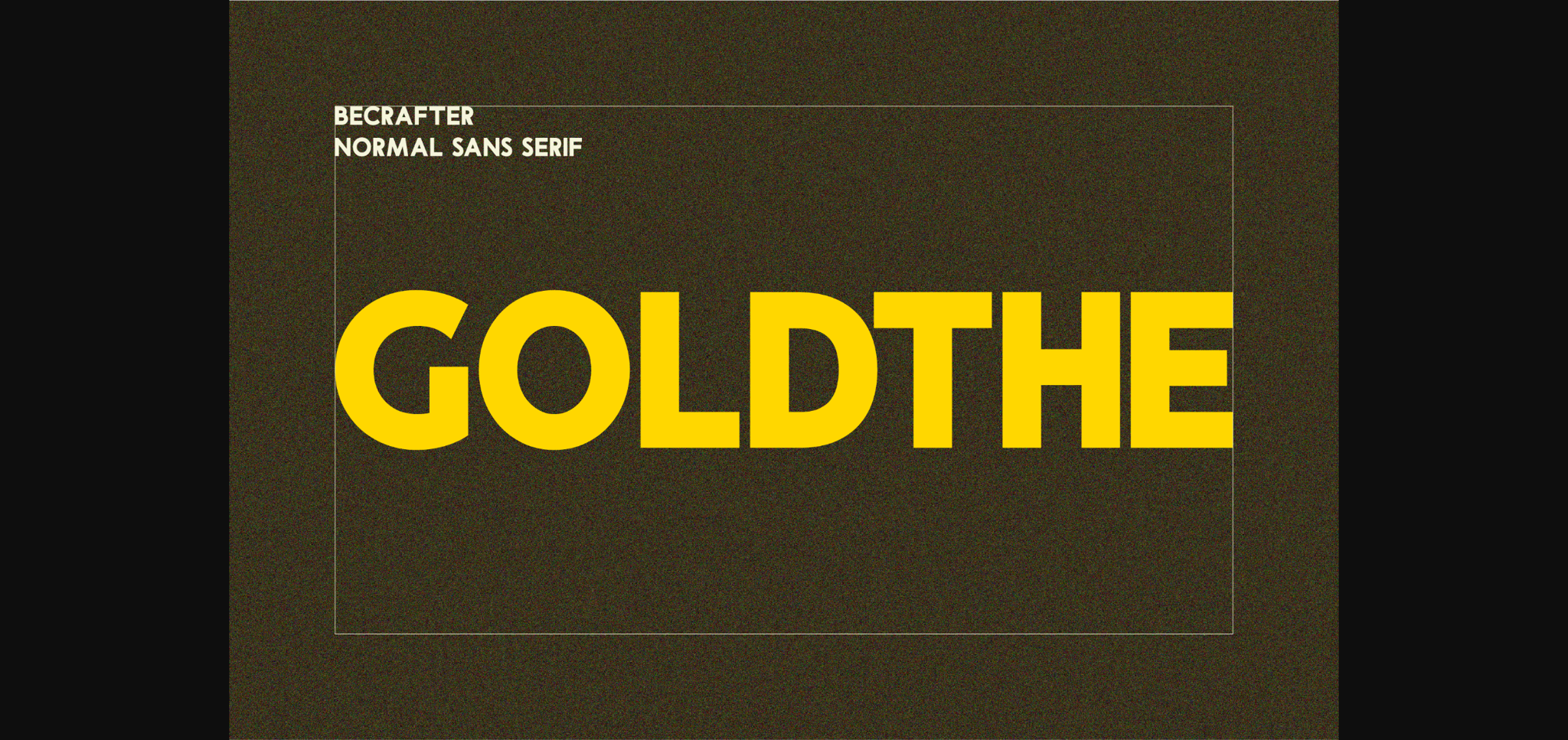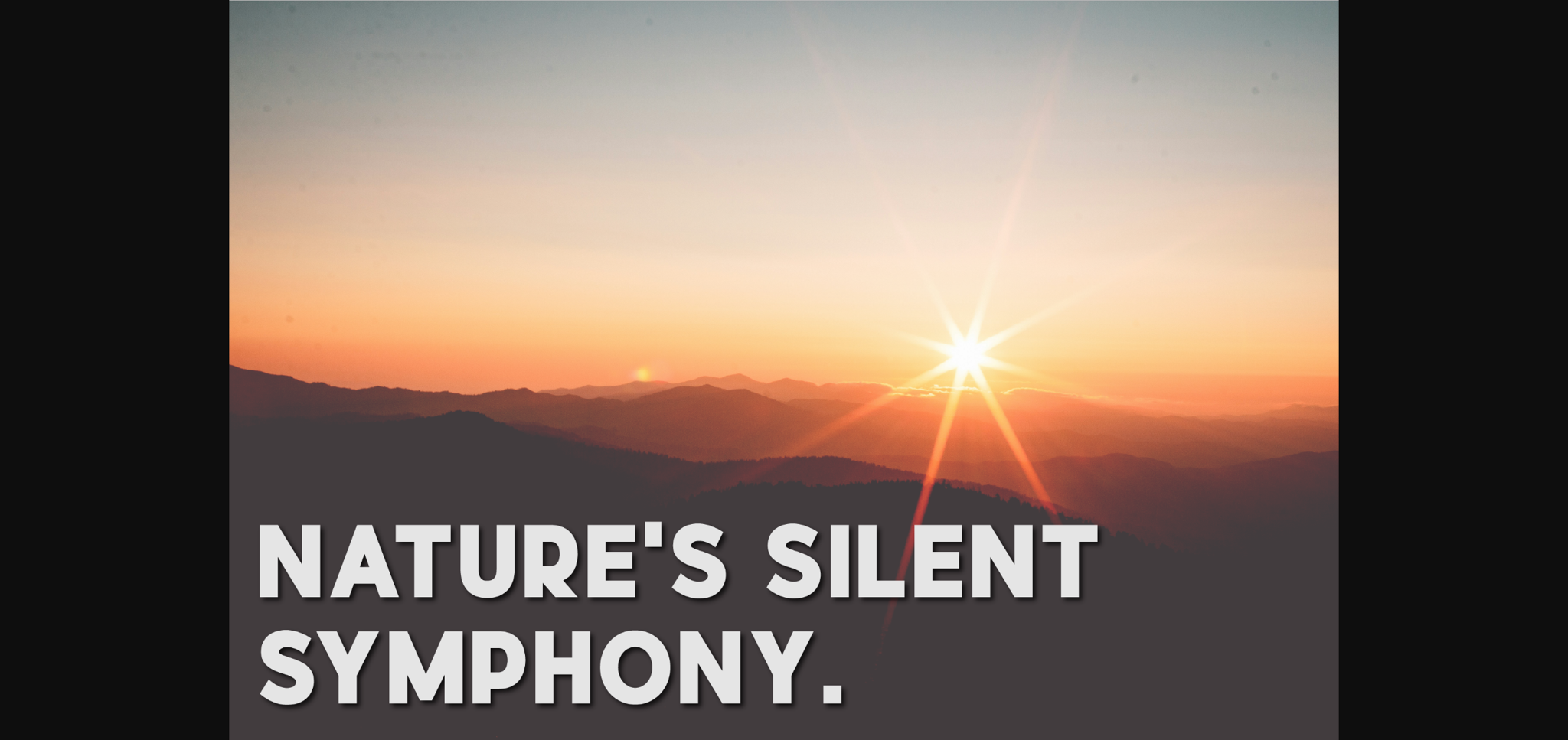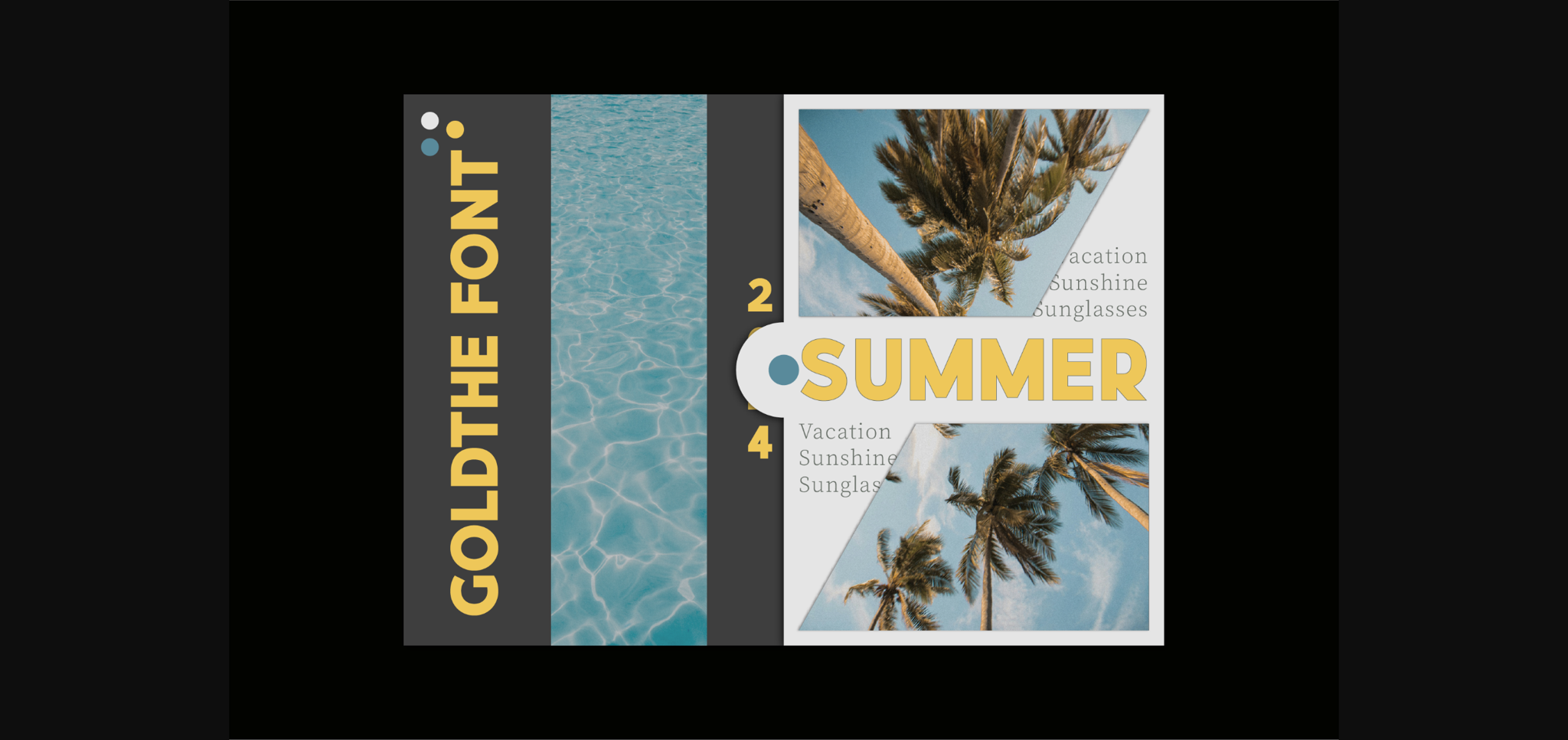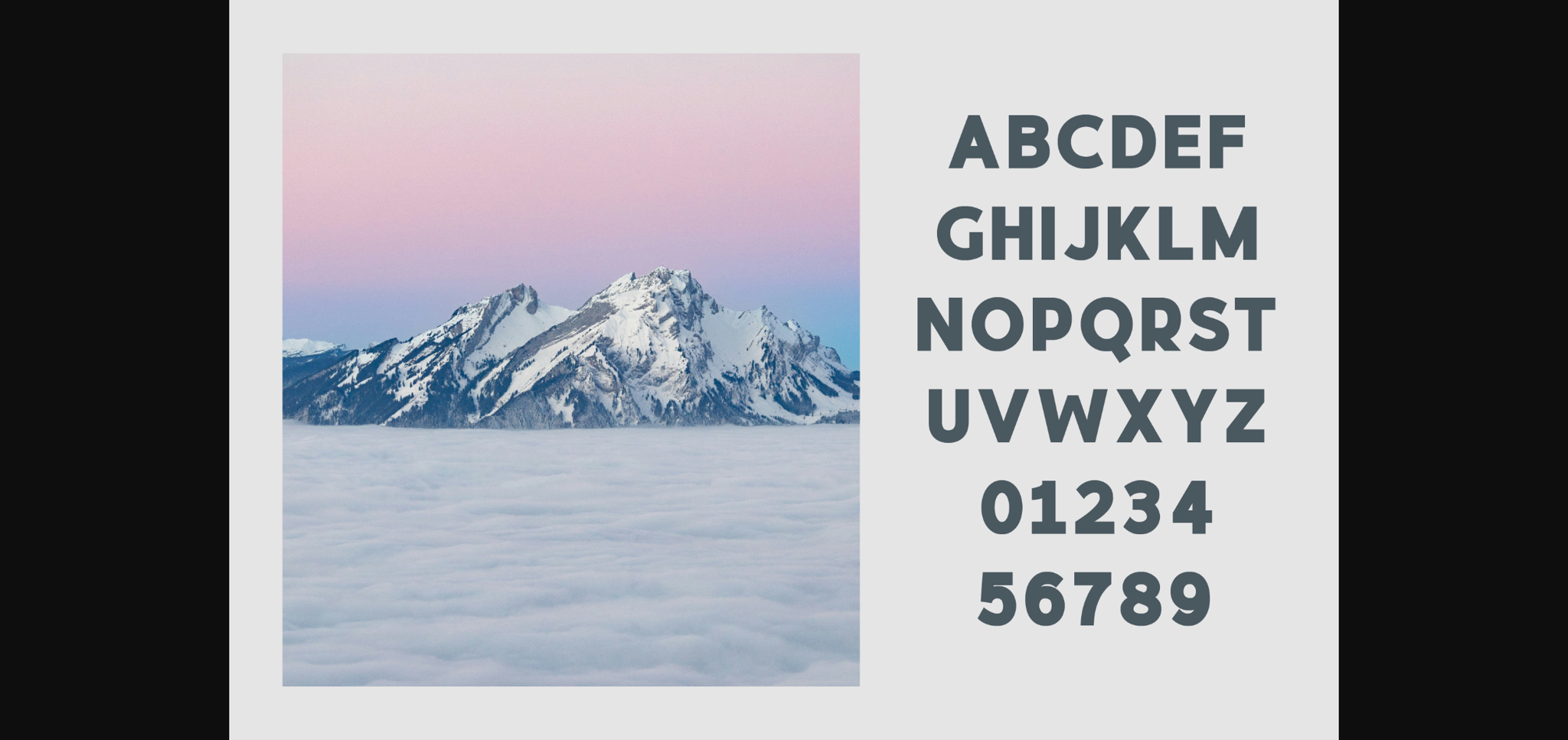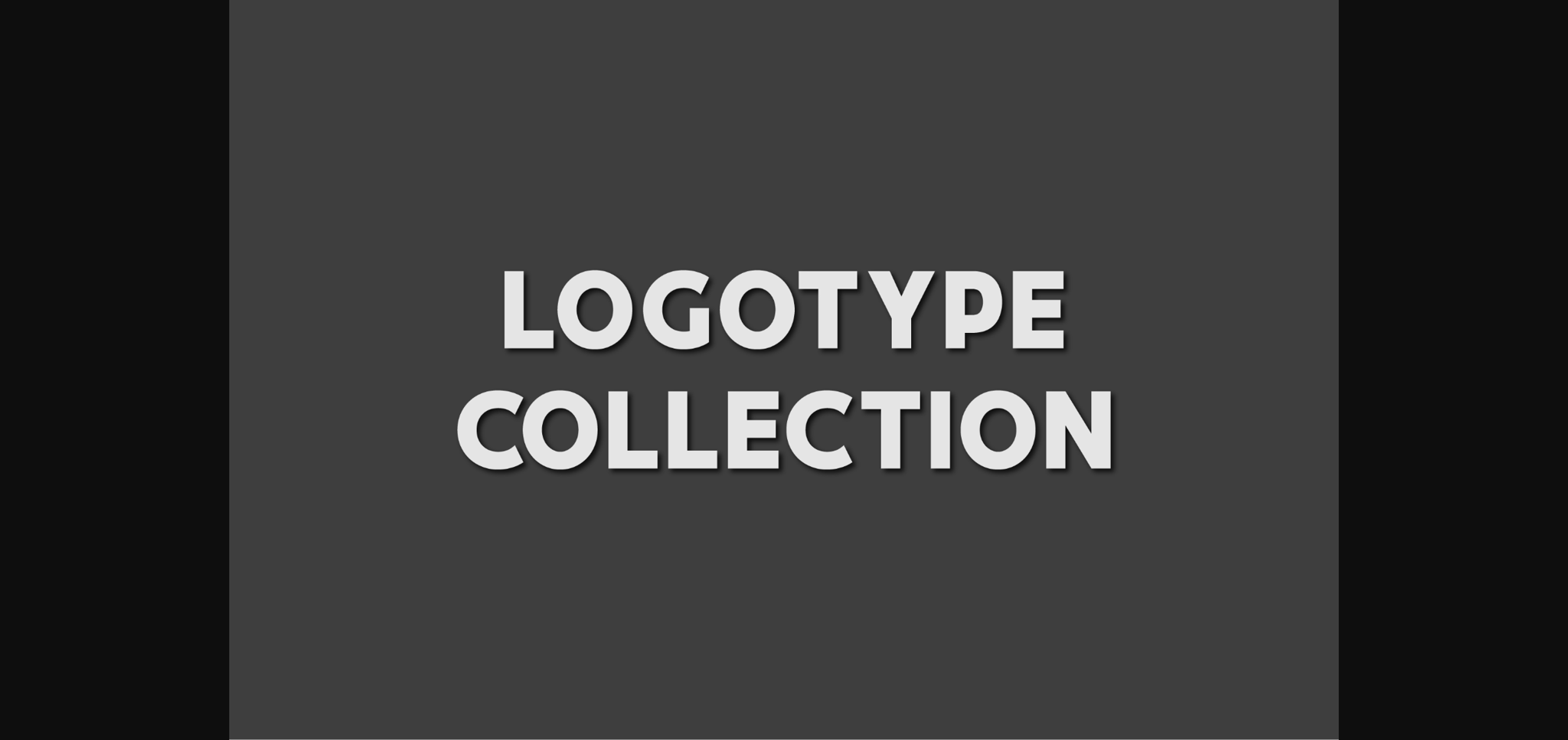
Goldthe Font
About Goldthe Font
Goldthe stuns with its bold sans-serif sophistication and elegant sharp-edged aesthetic. Featuring two file types – .ttf and .otf – this versatile font offers a diverse range of applications. It casts a spell in magazine layouts, turns heads on invitation designs, whispers class in quotes, and amplifies allure in headers. Wherever attention is of paramount importance, let the sheer magnificence of Goldthe work its charm. It’s made for designs that demand to be seen, and remembered…